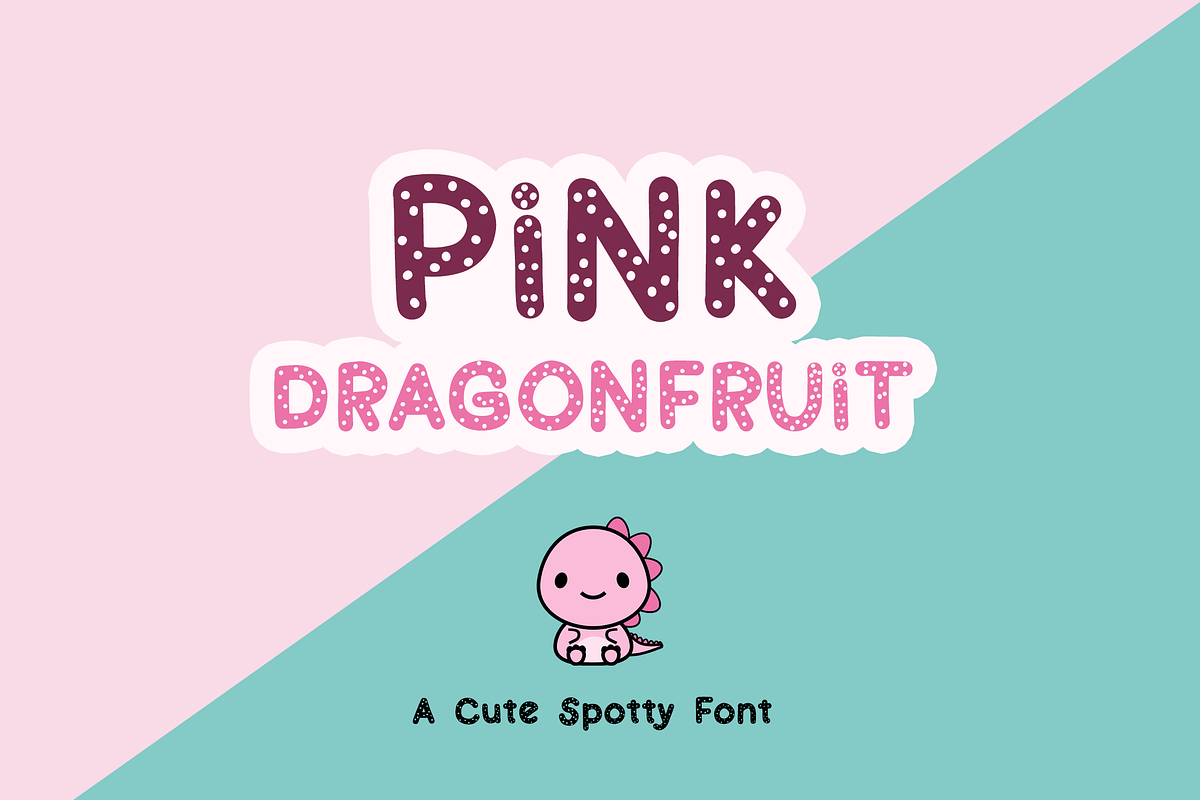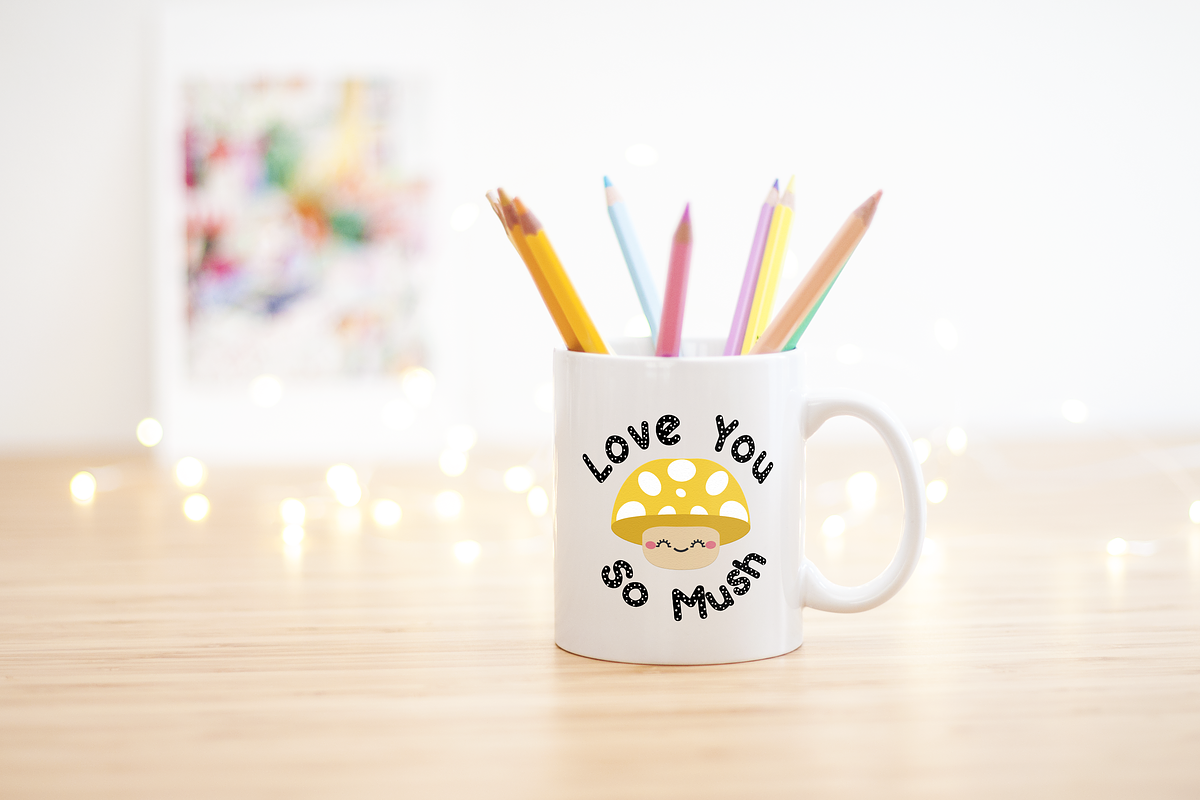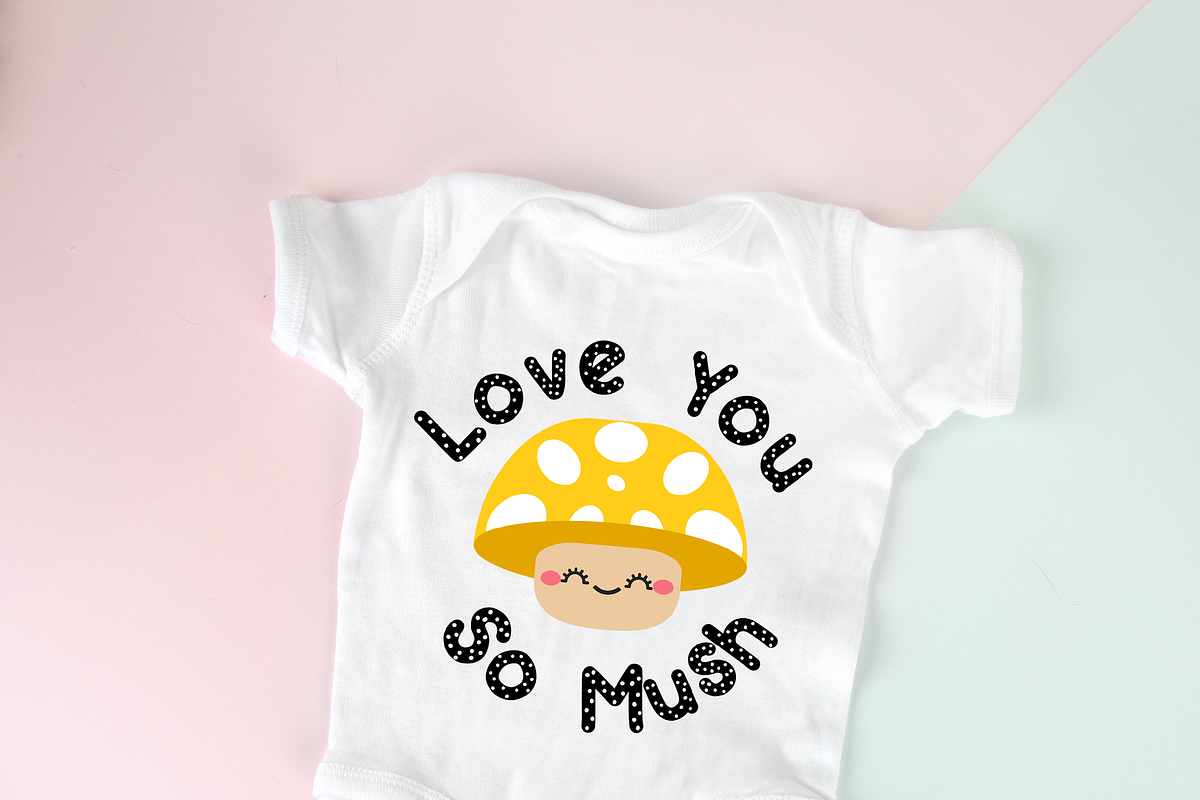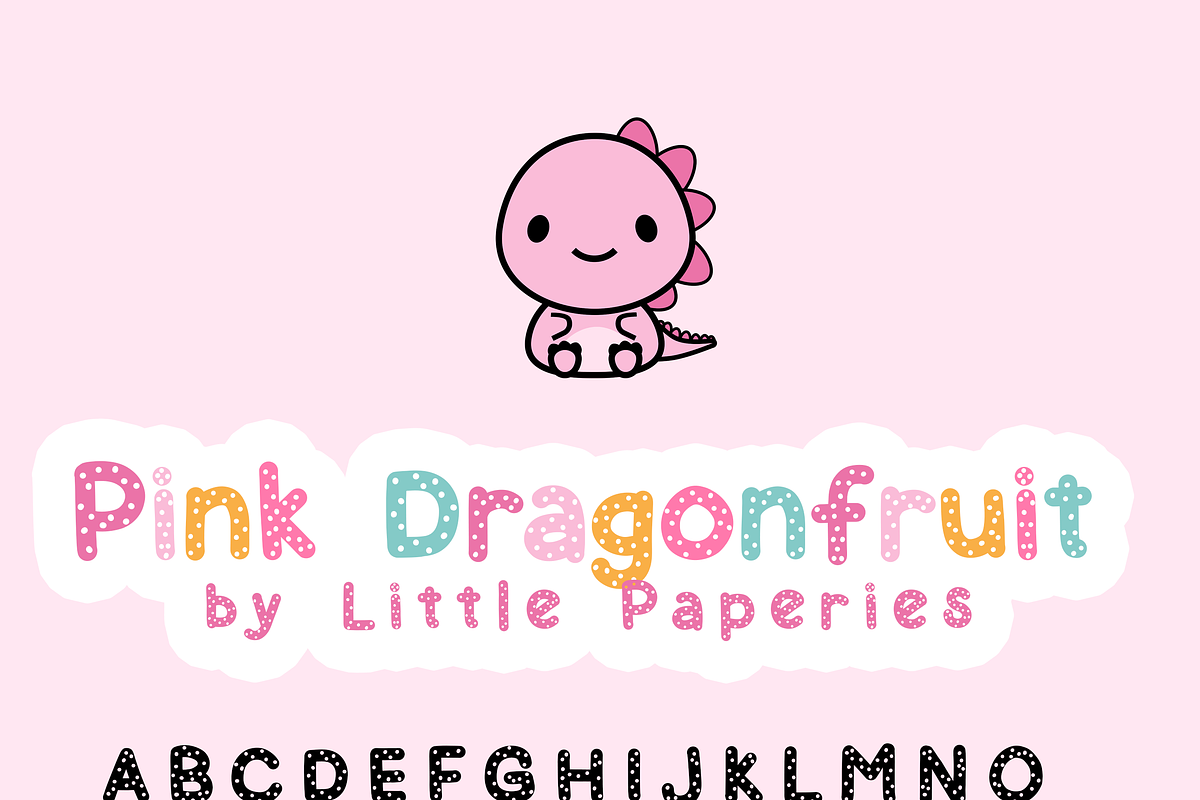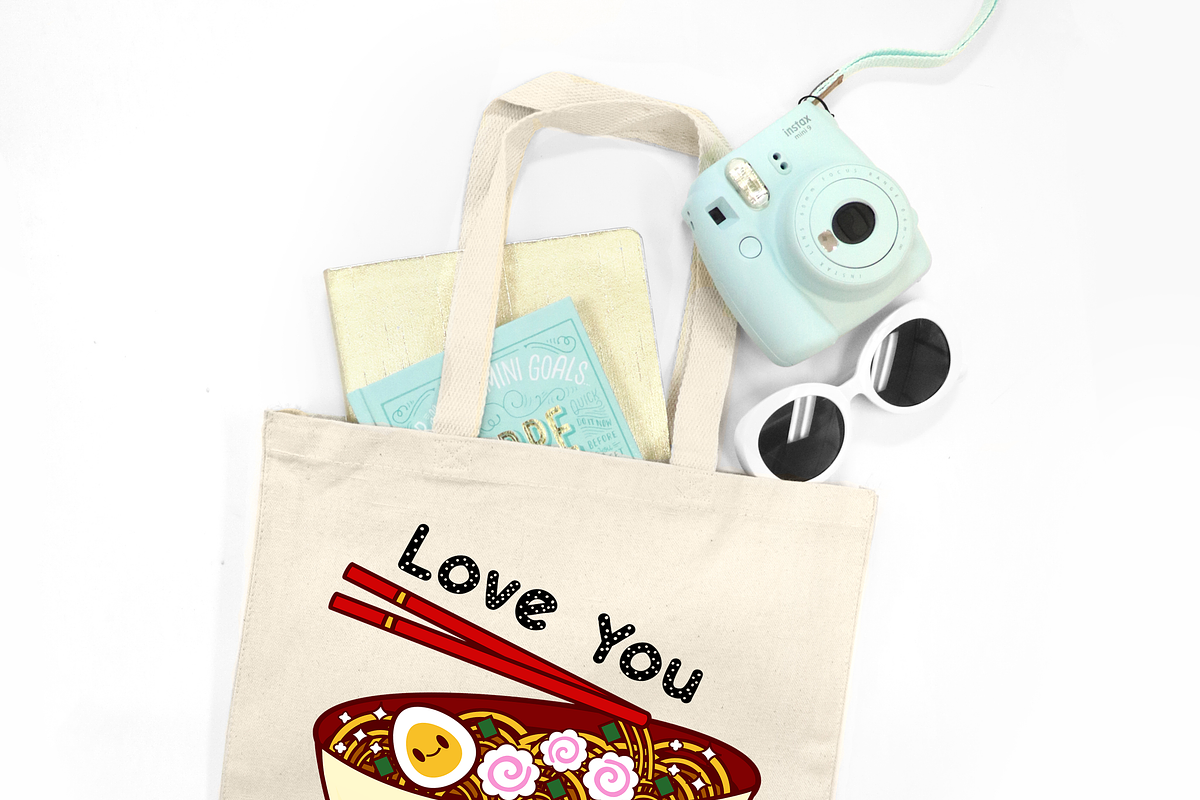
Pink Dragonfruit
We introduce to you the "Pink Dragonfruit" font! A cute spotty handwritten font made just for you and all of your future fave products.
Perfect for one of a kind invitations, stickers, business cards, logos, blog headers, apparel design ..And so much more, the possibilities are endless!